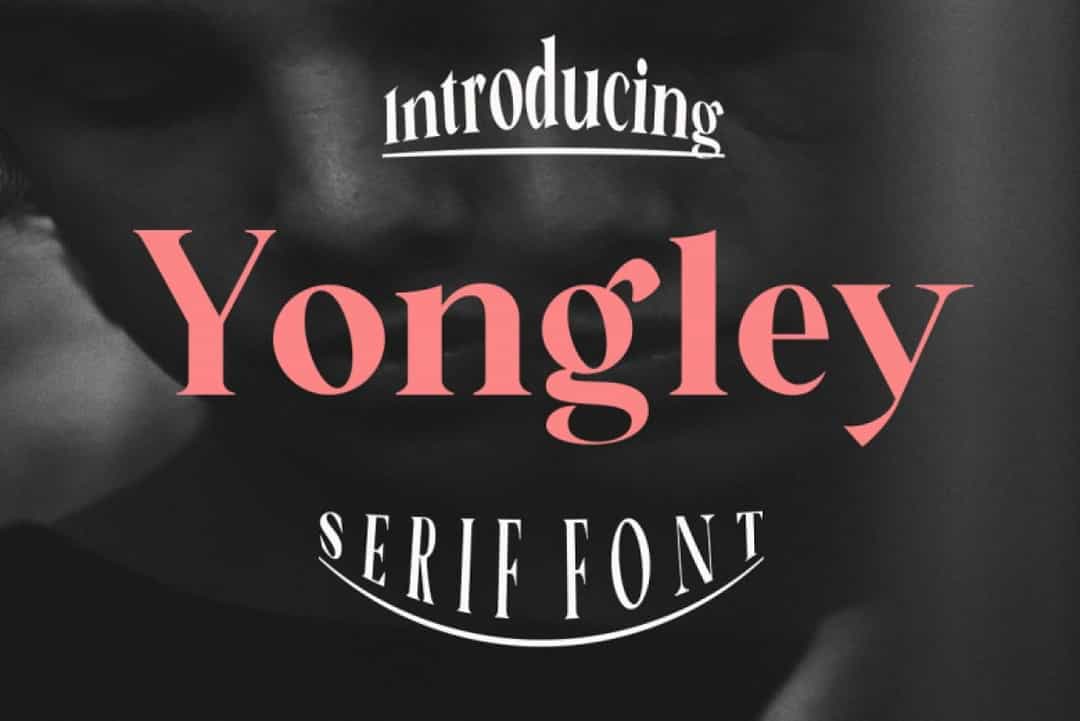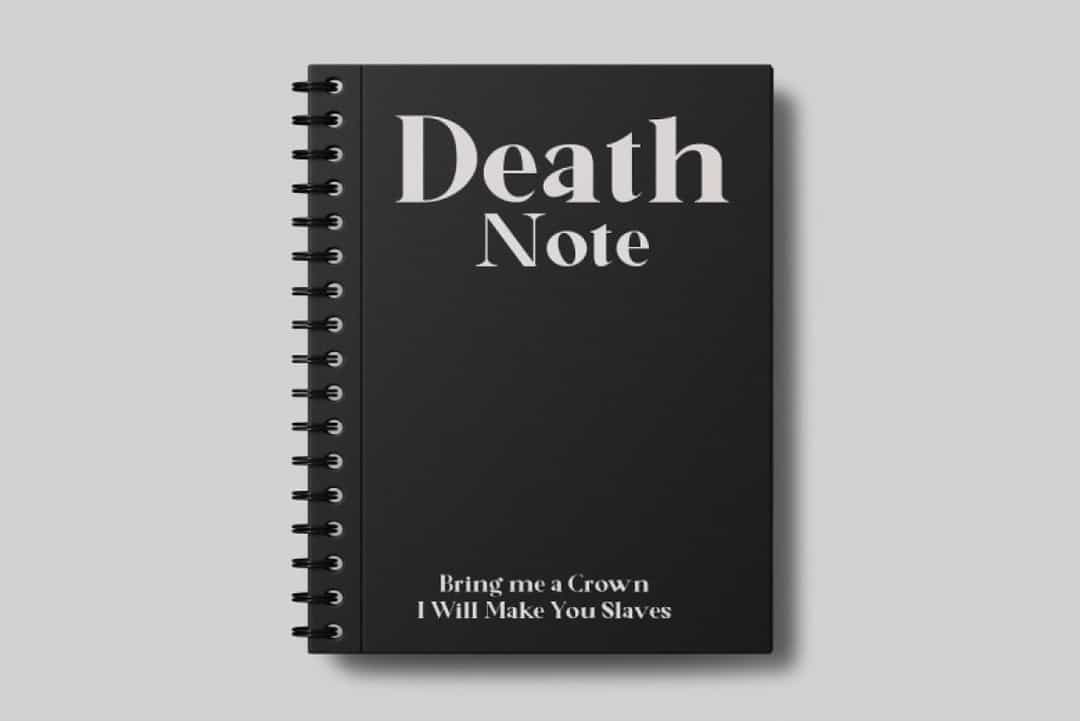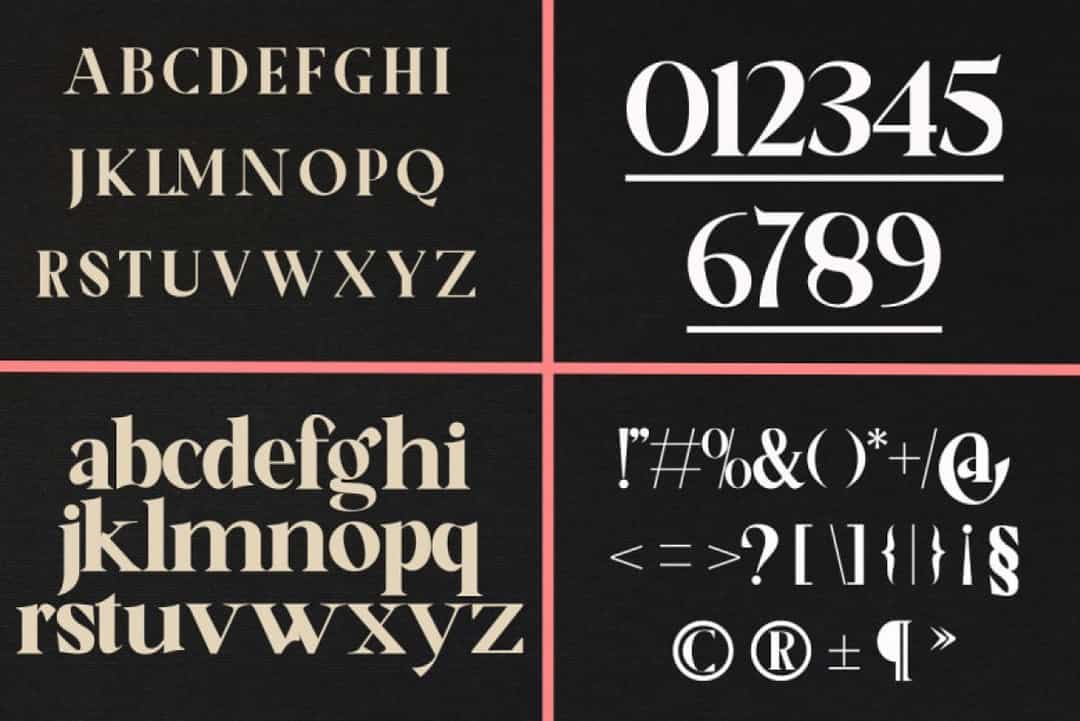
Yongley, It is a modern serif typeface with a stylish and contemporary design, featuring access to OpenType features which give access to an extensive collection of alternative letters and ligatures. Select your letters of choice from lowercase or uppercase alphabet for a sophisticated yet classy appearance.